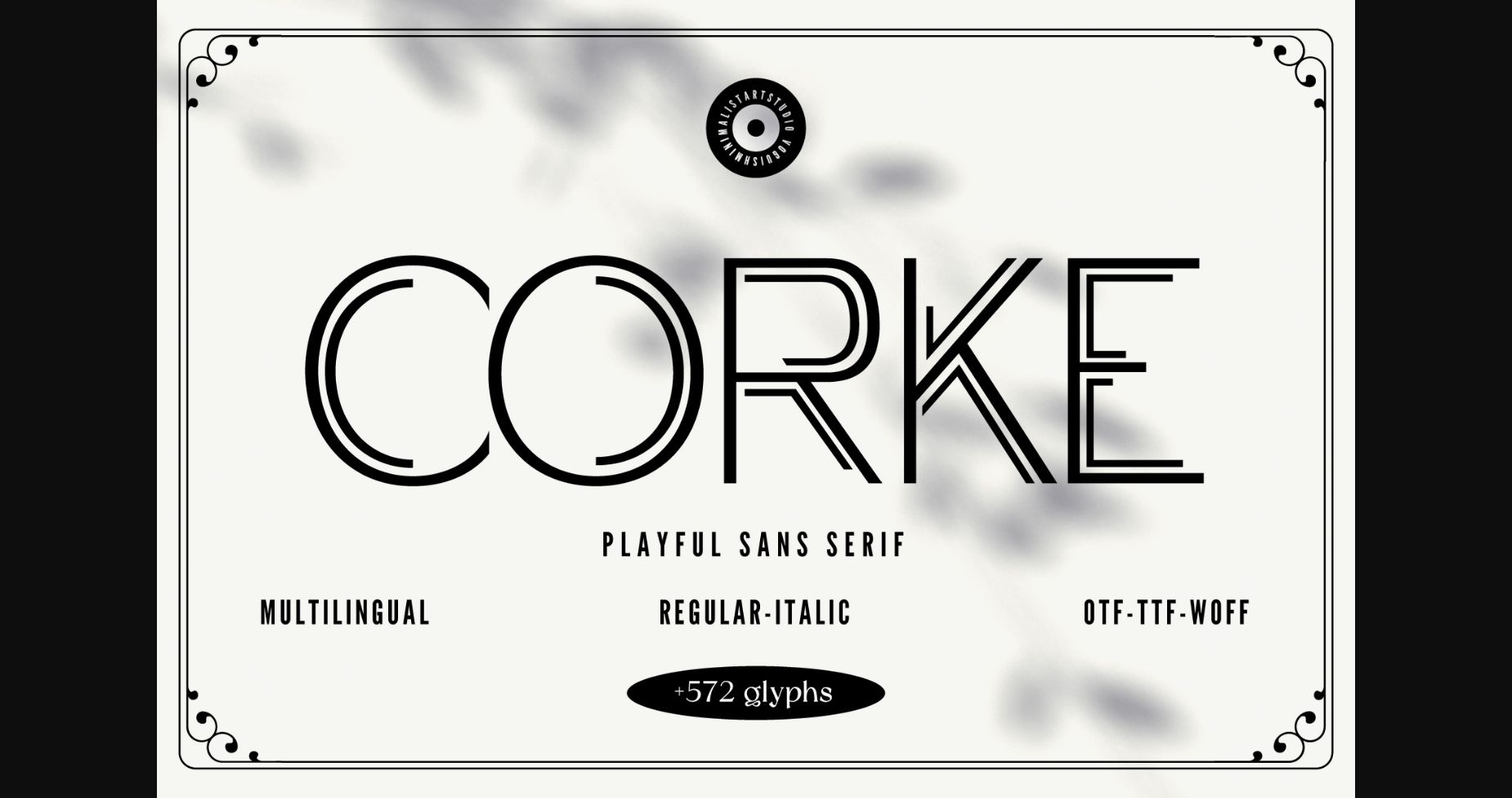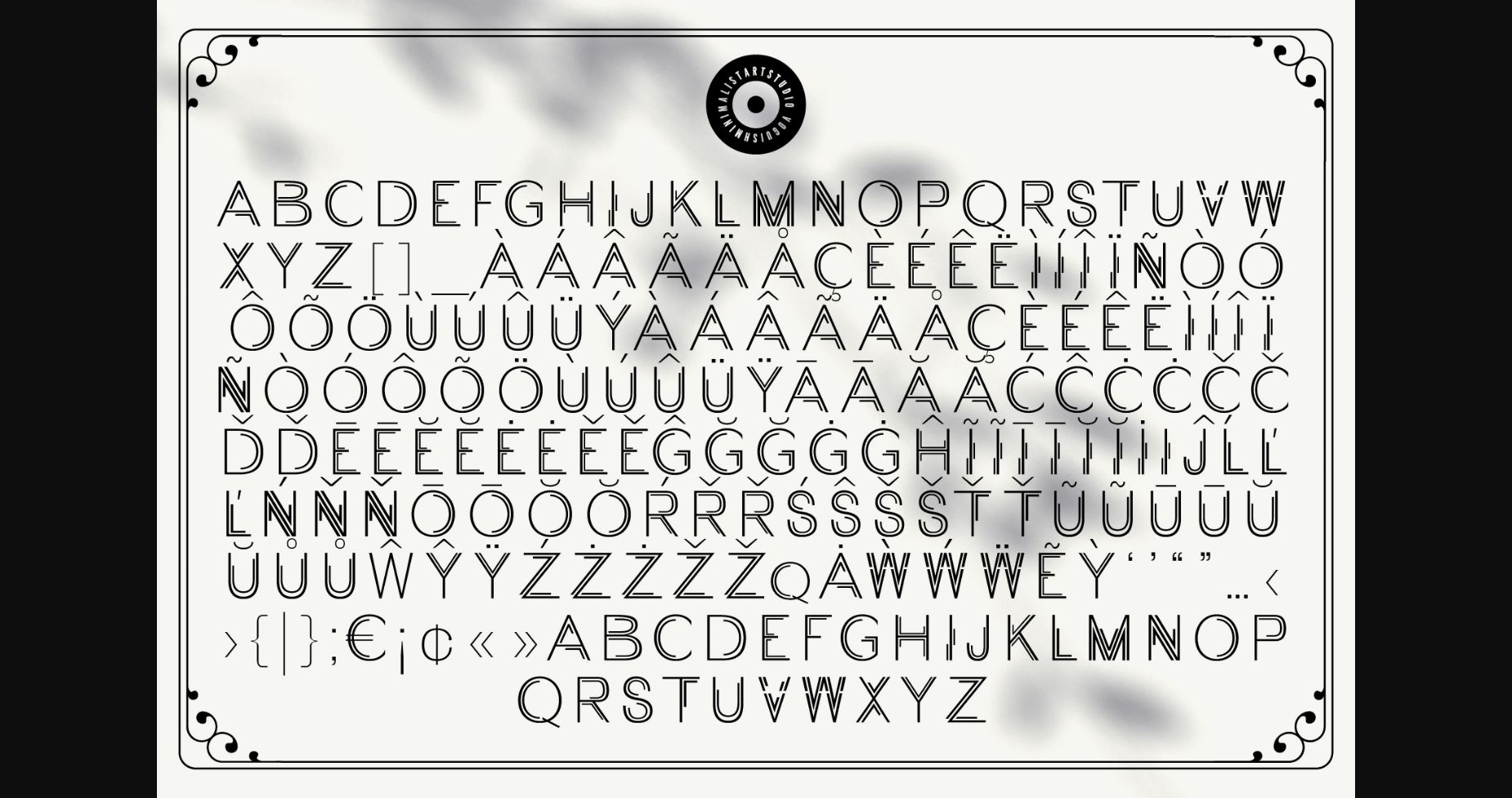
About Corke Font
Introducing Corke, the ultimate font for modern and minimalist design! With its geometric and clean sans serif grotesque style, Corke brings a fresh and contemporary look to any project.
Crafted with precision and attention to detail, Corke features crisp lines and angles that create a sleek and sophisticated appearance. Its minimalist design makes it perfect for a wide range of applications, from branding and logos to web design and editorial layouts.
With a full range of uppercase and lowercase characters, numbers, and punctuation marks, Corke is incredibly versatile and can be used in a variety of design contexts. Whether you’re creating a logo for a tech startup, designing a website for a fashion brand, or laying out a magazine spread, Corke is a perfect choice.
Corke’s simplicity and elegance make it an ideal font for designers who value clean and modern design. So why wait? Try Corke today and take your designs to the next level!
Crafted with precision and attention to detail, Corke features crisp lines and angles that create a sleek and sophisticated appearance. Its minimalist design makes it perfect for a wide range of applications, from branding and logos to web design and editorial layouts.
With a full range of uppercase and lowercase characters, numbers, and punctuation marks, Corke is incredibly versatile and can be used in a variety of design contexts. Whether you’re creating a logo for a tech startup, designing a website for a fashion brand, or laying out a magazine spread, Corke is a perfect choice.
Corke’s simplicity and elegance make it an ideal font for designers who value clean and modern design. So why wait? Try Corke today and take your designs to the next level!